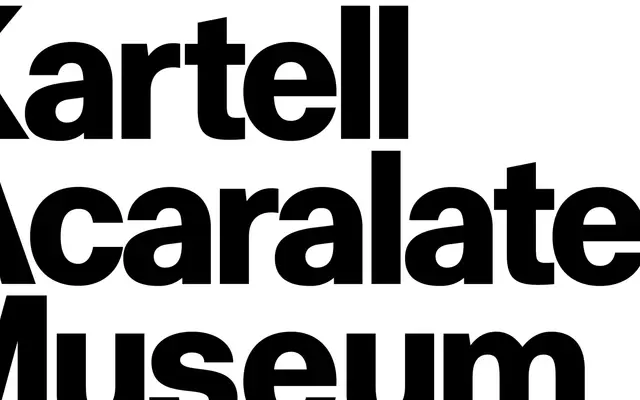
A five-weight grotesque from Type Department that draws on Swiss typographic tradition whilst introducing subtle humanist qualities for added warmth.
Rooted in the Swiss grotesque lineage, Metrik offers clean lines and balanced proportions across five weights from Light to Black, each with a matching italic. Subtle humanist details distinguish it from more neutral Swiss models, giving it a quiet personality suited to editorial layouts, branding and screen use. At 352 glyphs per style, the character set covers extended Latin diacritics and includes oldstyle figures alongside standard numerals.
Described as a refined grotesque sans serif rooted in Swiss typographic tradition with subtle humanist qualities, placing it firmly in the grotesque category with humanist inflections.